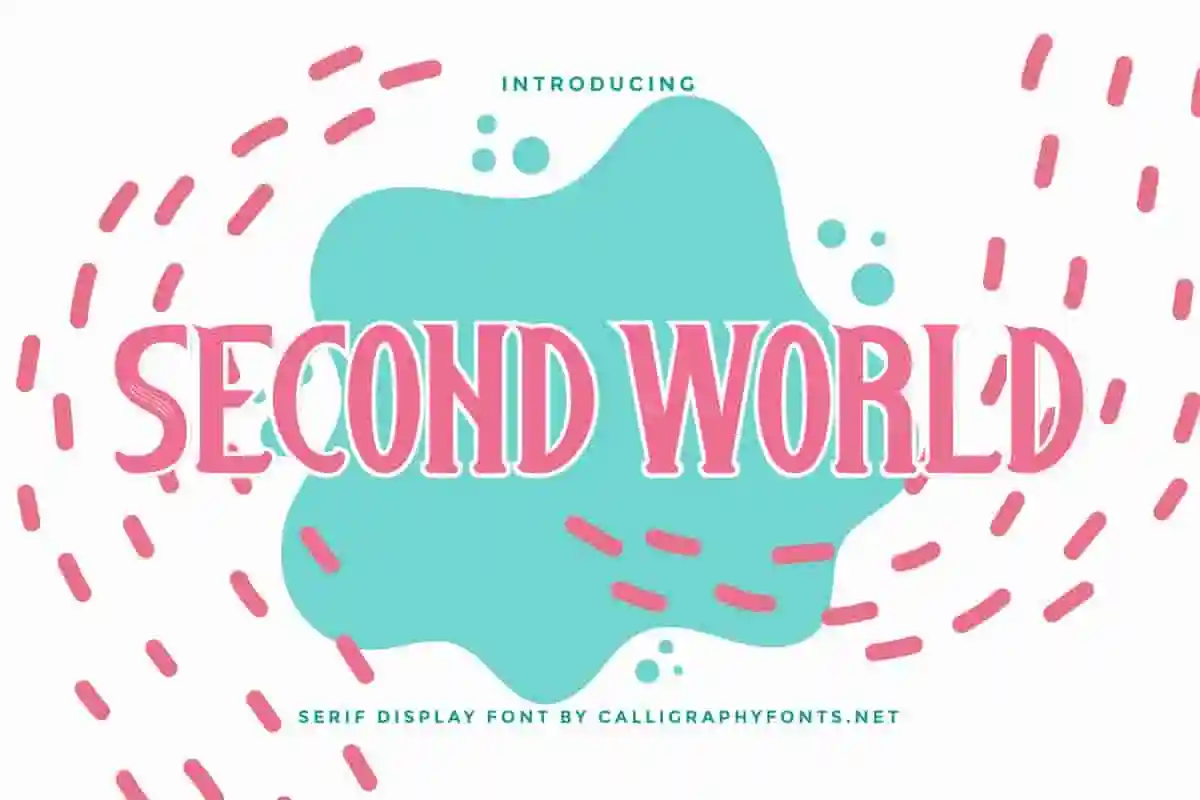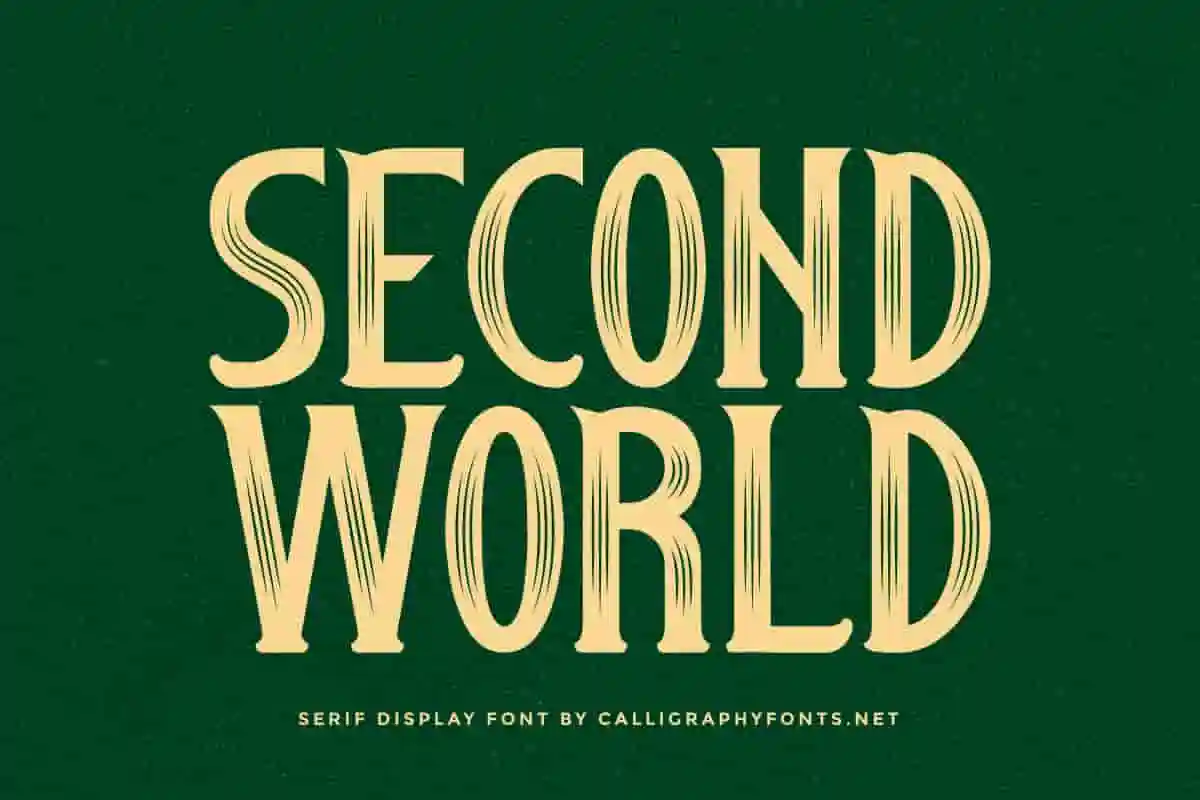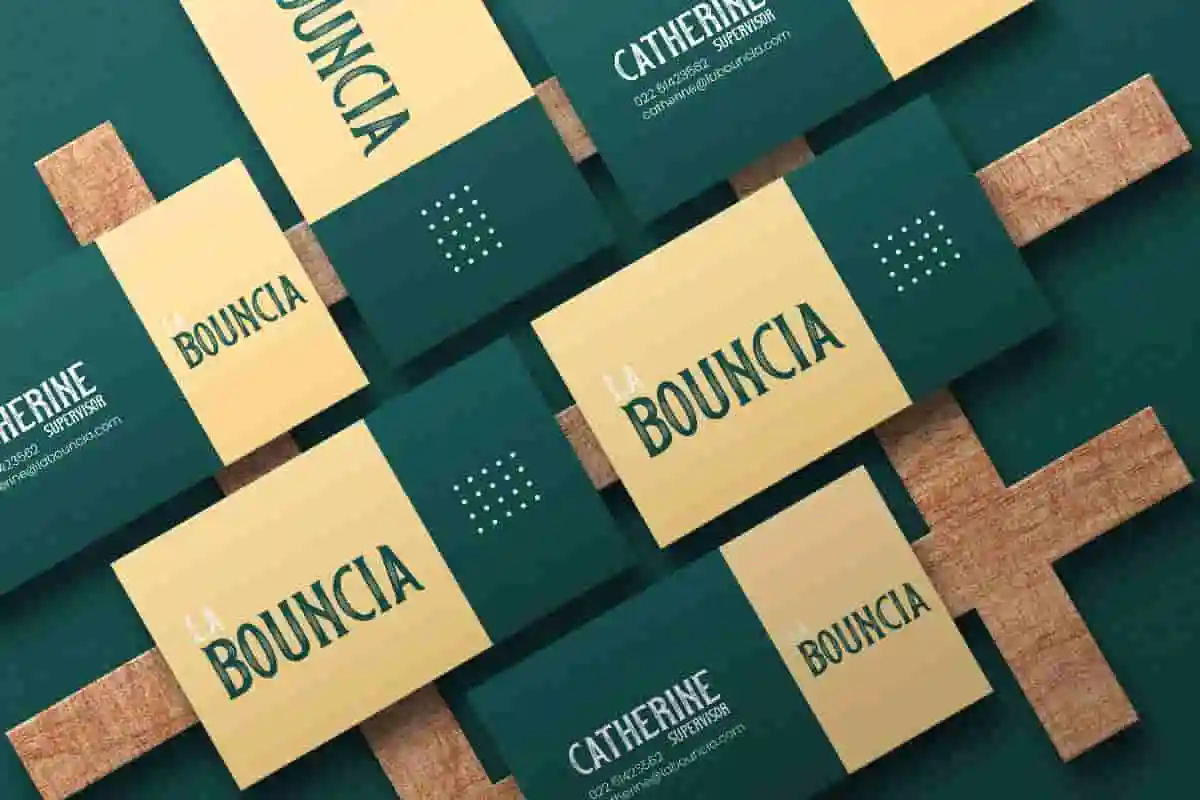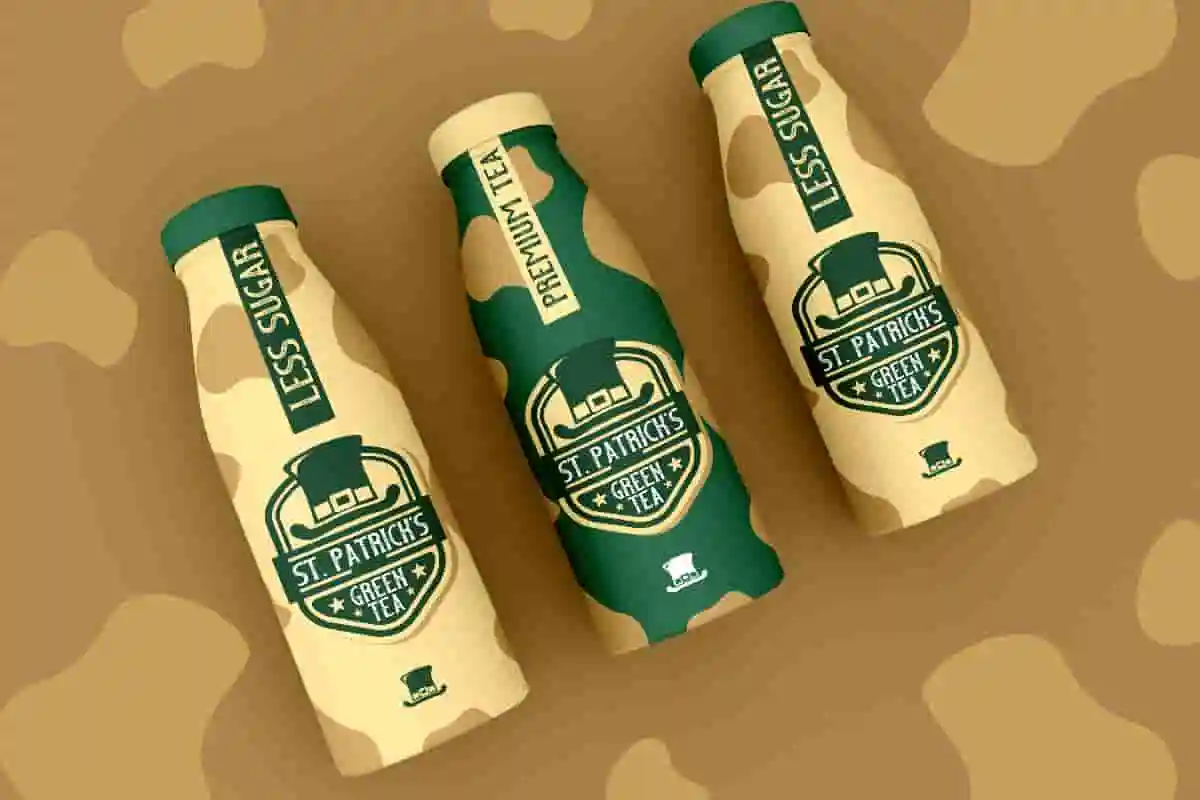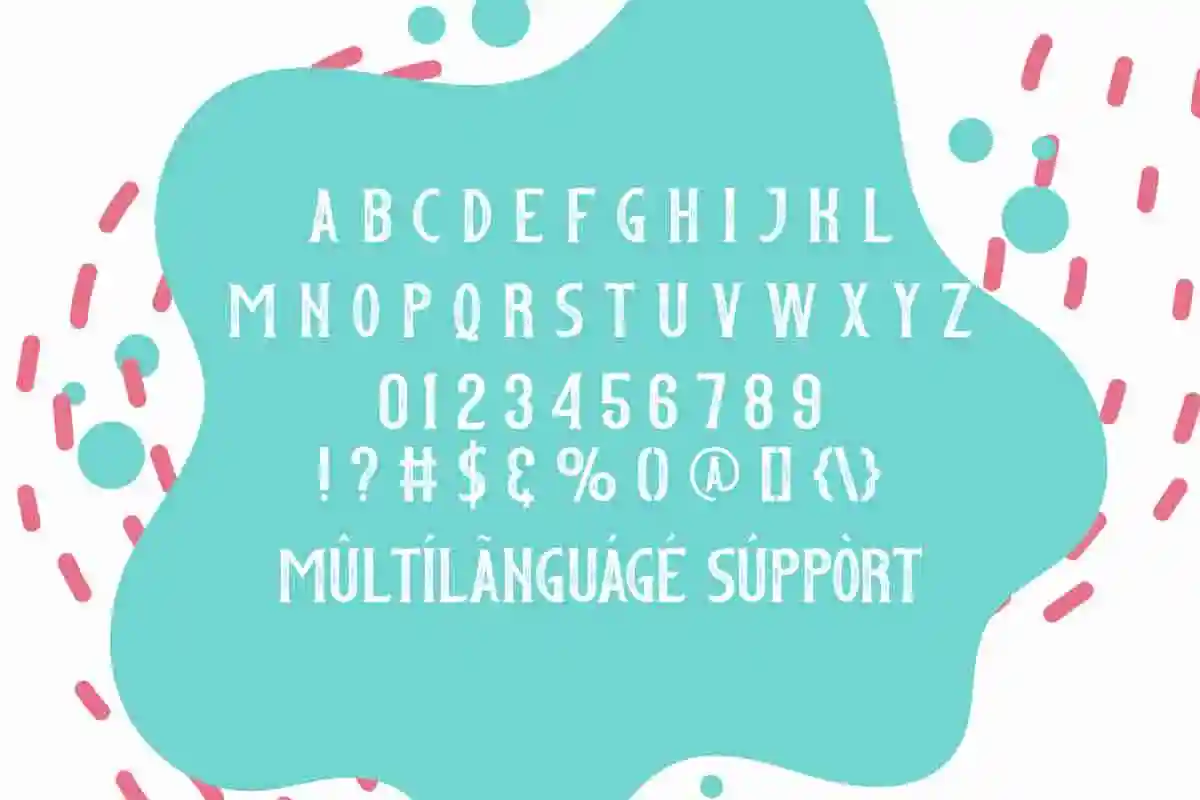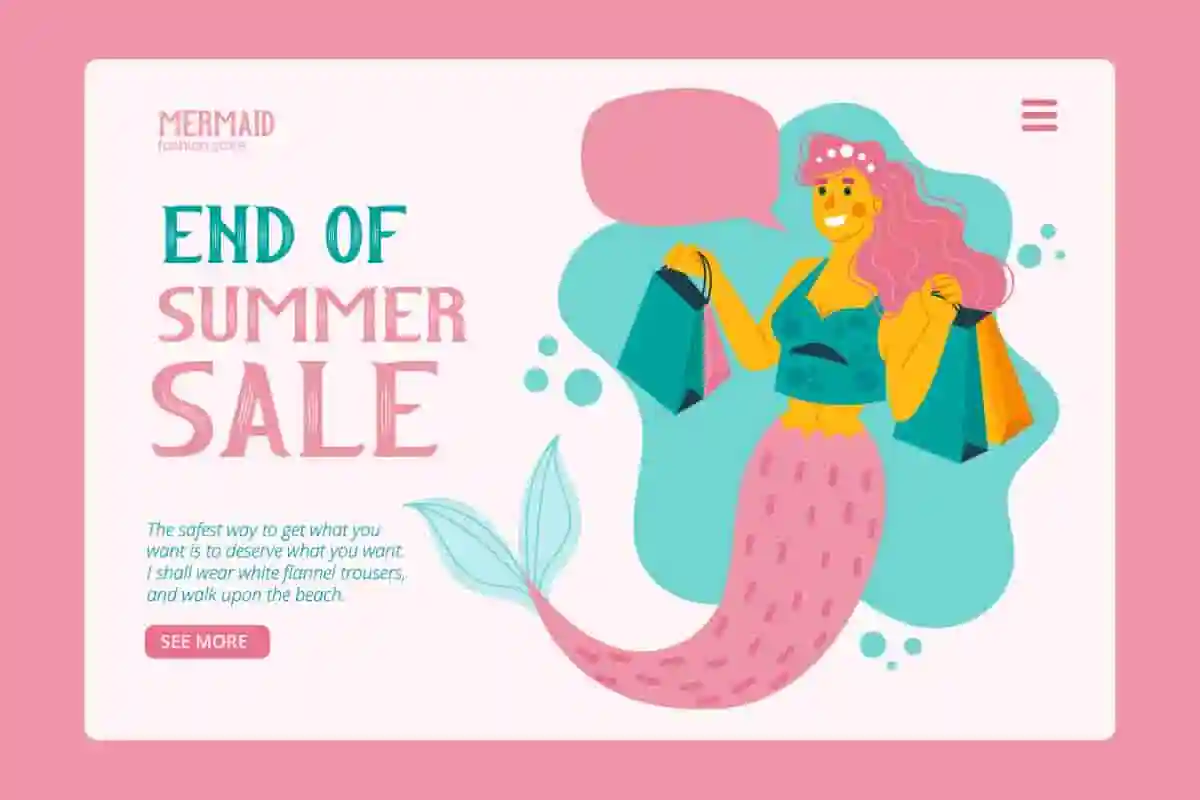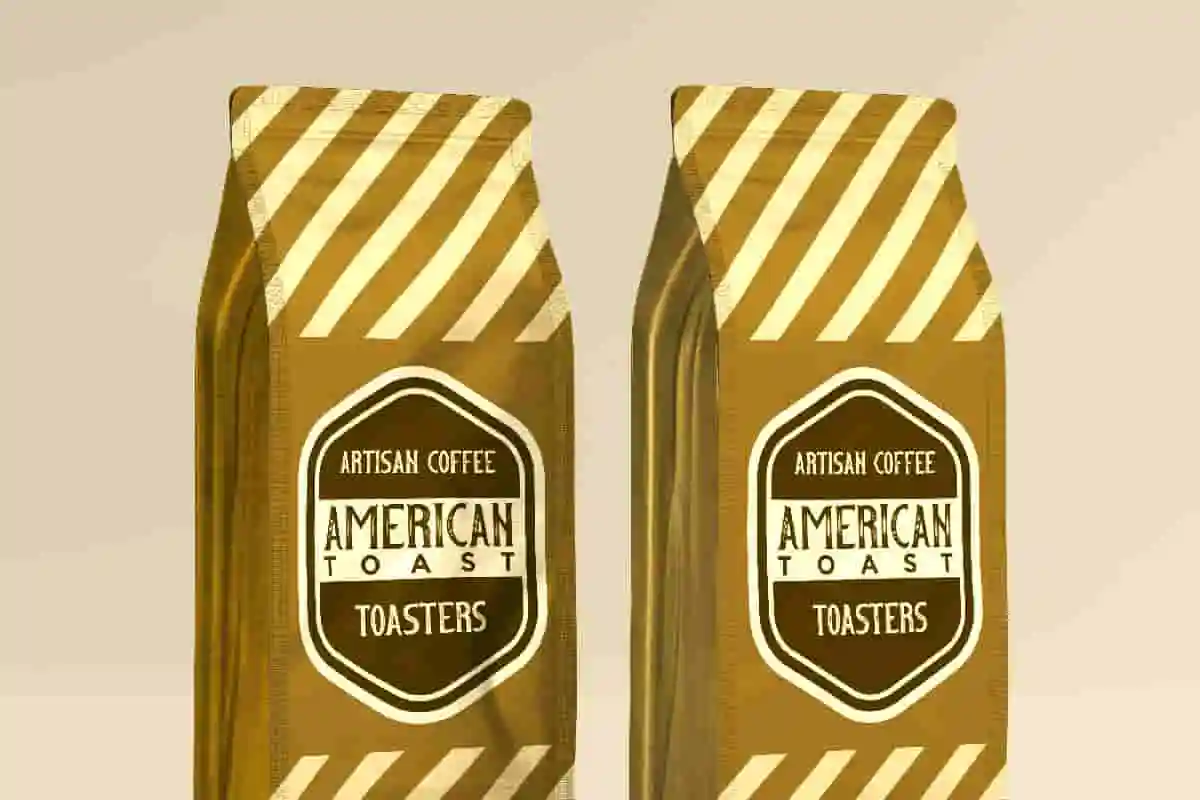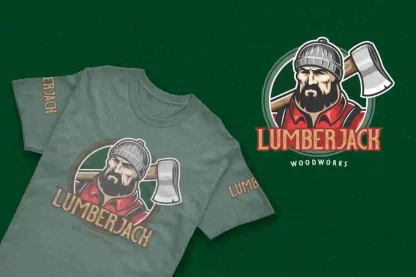
Second World Display Font
Second World Font is a unique vintage serif display font with western style and textured effect on the letters that can be used to give an authentic feel. This font good for vintage design, badges, blog header, branding design, fashion apparel, logo, poster, stationery and many more.
Second World Font is a vintage serif display font that has a smooth textured effect and western style that looks awesome on all the characters. It works incredibly well on blog, business card, stationery, comic, handcraft, game, kids stuff, packaging, label, letter design on t-shirt, poster, product design, or anything.
Step into a new era of typography with Second World Display Font – a bold, modern, and futuristic font designed to make your creative projects stand out. Whether you’re designing posters, game titles, logos, or sci-fi-themed graphics, Second World gives your work a powerful, high-tech edge.
This display font is crafted for impact. Its sharp lines, geometric shapes, and unique character design create a visual language that speaks of innovation and forward-thinking. Second World is not just a font – it’s a statement. Perfect for designers who want their work to command attention, this bold typeface brings energy and style to every project.
Optimized for digital and print use, Second World offers clean readability even at larger sizes, making it ideal for headlines, banners, album covers, and more. Whether you’re designing for tech brands, gaming interfaces, or cinematic posters, this futuristic font delivers the vibe you’re looking for.
Introducing Second World Display Font, a cutting-edge typeface that blends boldness with futuristic aesthetics. Designed for visionary creators, this modern display font brings a unique, sci-fi-inspired energy to your visual identity. Whether you’re building a brand, launching a game, or designing eye-catching posters, Second World sets the tone for innovation.
• Versatile and easy to use across platforms
• Clean, crisp lines for high-impact visuals
• Futuristic and bold design
Second World Font includes Uppercase, Lowercase, Number, Punctuation, and Multilingual characters. This font would be perfect to incorporate in your designs, suitable for business card, café, carpentry, digital lettering, farm business, game and technology industry, logo, print material, t-shirt, typography, etc. Tested work on MAC or PC. It’s PUA encoded (open with Character Map on Windows and Font book on MAC).